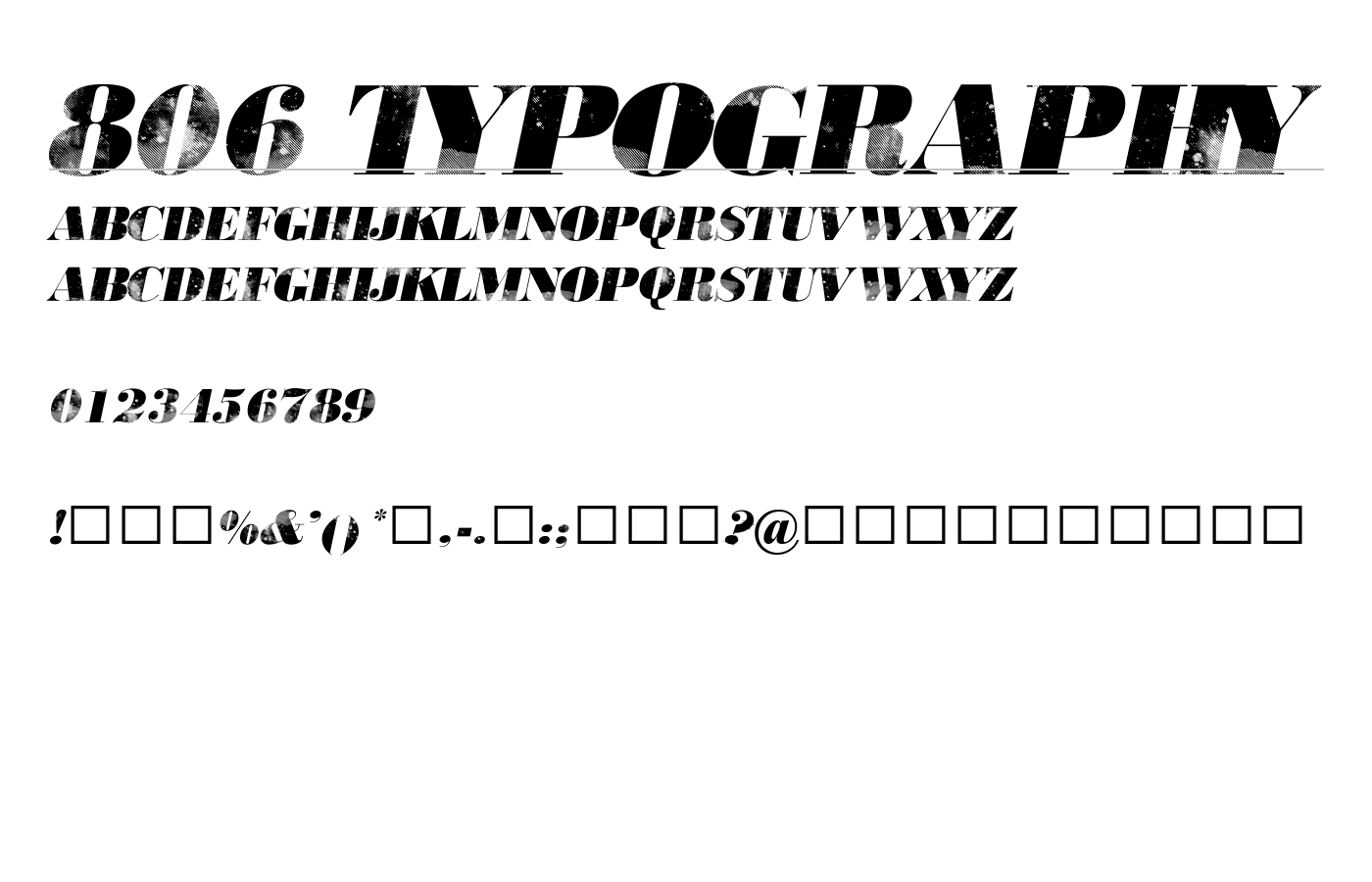
806 Typography Font is a bold, condensed serif typeface with a strong Didone influence, characterized by high contrast between thick and thin strokes and sharp, elegant serifs. Its distinctive distressed texture combined with an italicized style adds a vintage yet dynamic feel, making it ideal for impactful headlines and stylish branding in fashion or editorial design. This font stands out with its unique blend of classic sophistication and rugged, textured charm.
806 Typography Font
About 806 Typography Font
| Font family | 806 Typography Font |